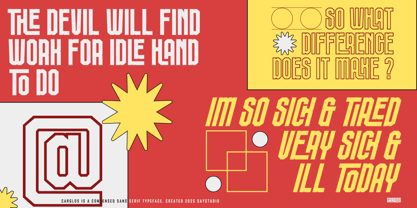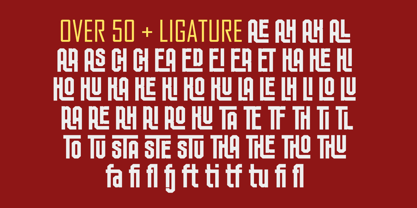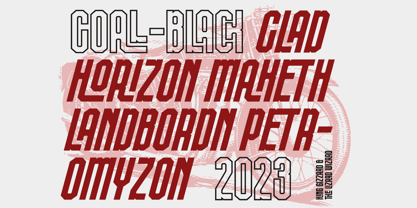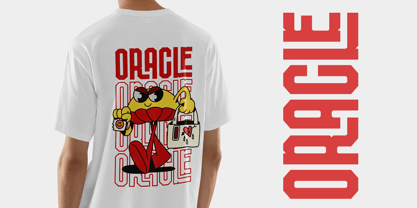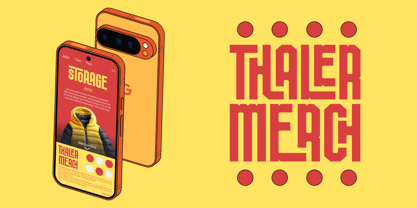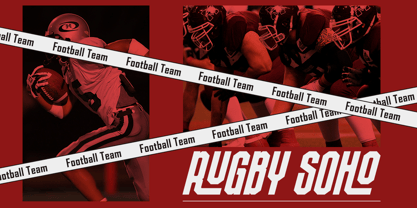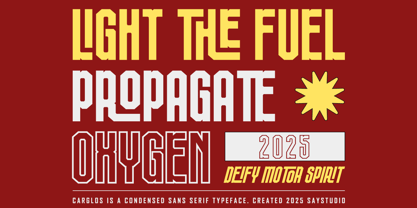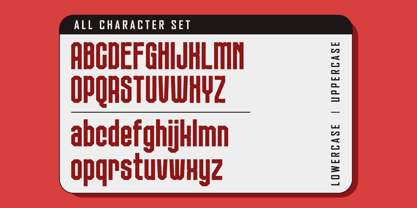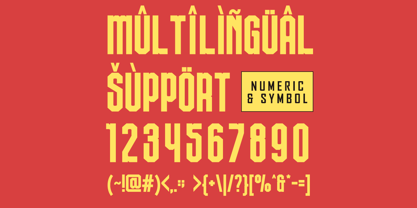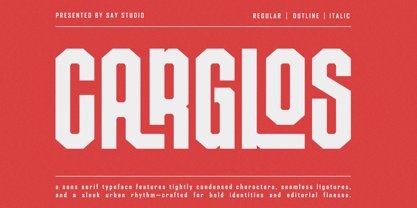
Carglos
by Say Studio
The Carglos Font Family was designed by Mussyayin and published by Say Studio. Carglos contains 3 styles.
Carglos is a simple, condensed sans serif font with bold and complex personality. It was purposely crafted to be used in large point sizes, although it doesn't lose it's magic in small point sizes. Carglos is perfect for headline, billboard, magazines, website, titles, poster, branding, and logos. With tons of ligatures, alternates, and other features to choose from, you can make your project stand out from the rest.
- 50+ Ligatures Character
- Multilingual Support